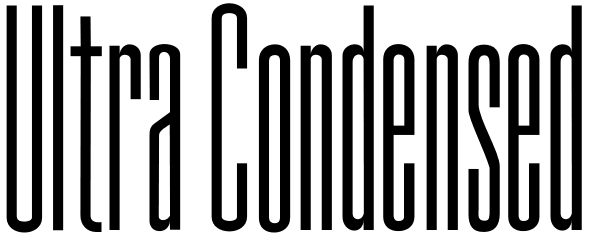
Ultra Condensed
Ultra Condensed is a three-font family with a full character set. Ultra Condensed is a remastering of Tall Skinny Condensed from 1999 which continues to be a favorite. While similar, the fonts are not interchangeable. Shapes of some letters have...
Ultra Condensed
Ultra Condensed Lettered
Ultra Condensed Line